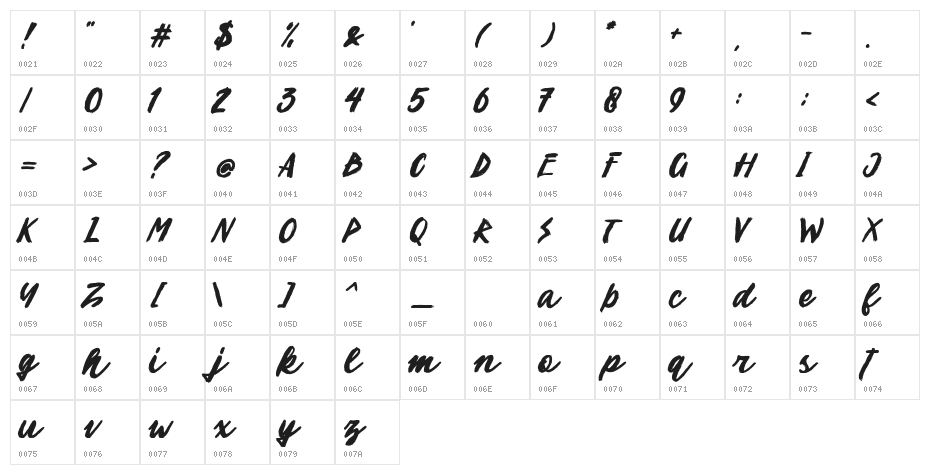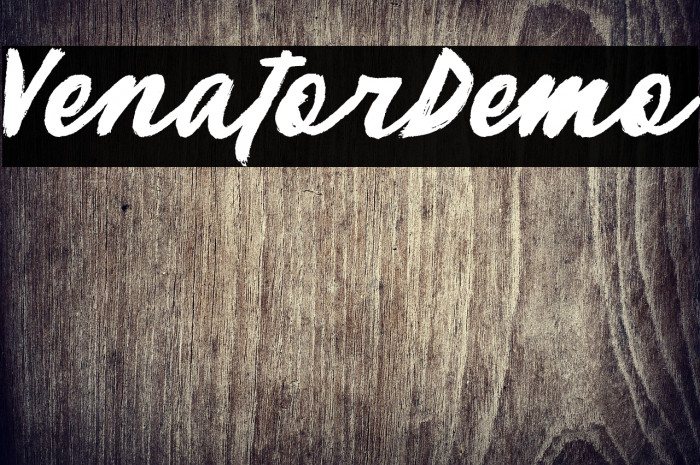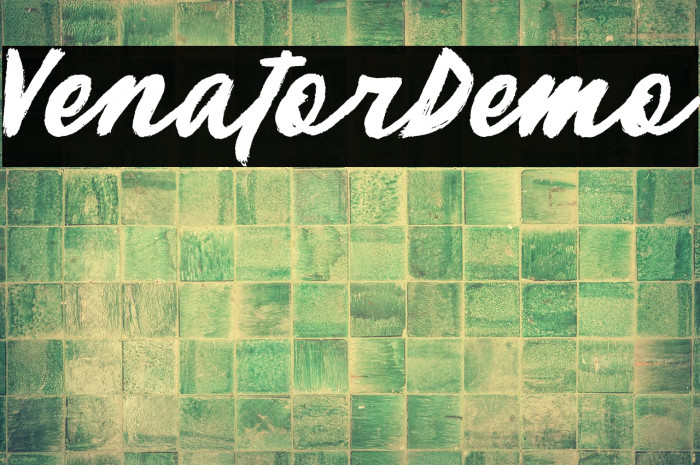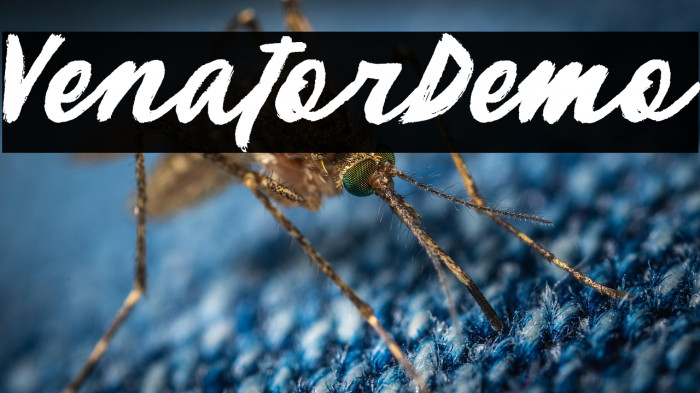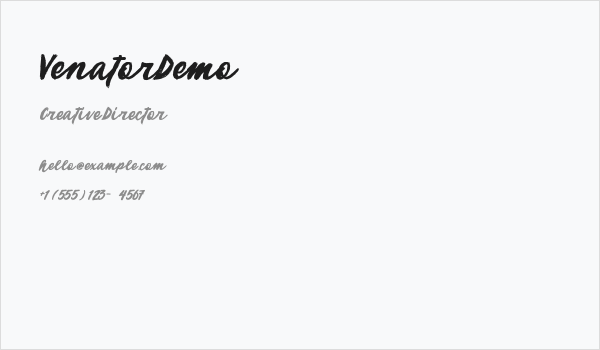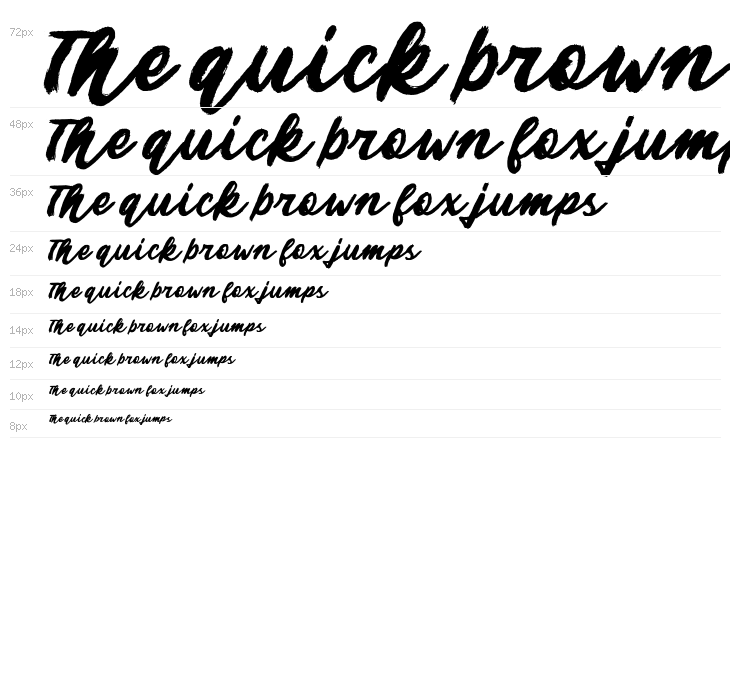
VenatorDemo Font
VenatorDemo Description
This font exhibits a bold, expressive style with a brush script appearance, characterized by its dynamic and fluid strokes. The letters are connected in a cursive manner, giving it a handwritten feel. The uppercase letters are bold and prominent, while the lowercase letters maintain a consistent flow, enhancing readability. The numbers and special characters follow the same stylistic approach, ensuring uniformity across all elements. The overall design is energetic and artistic, making it suitable for creative and informal applications.
Proposed ProjectsIdeal for creative projects such as logos, posters, invitations, and branding materials where a personal and artistic touch is desired.